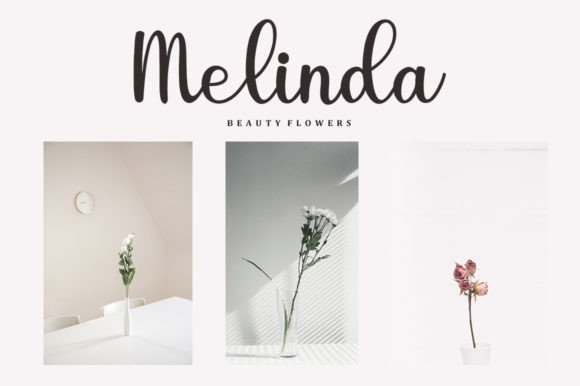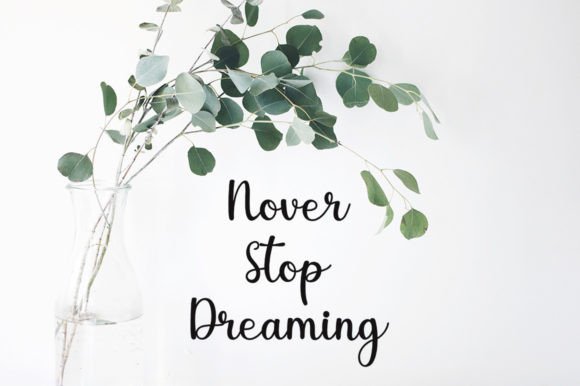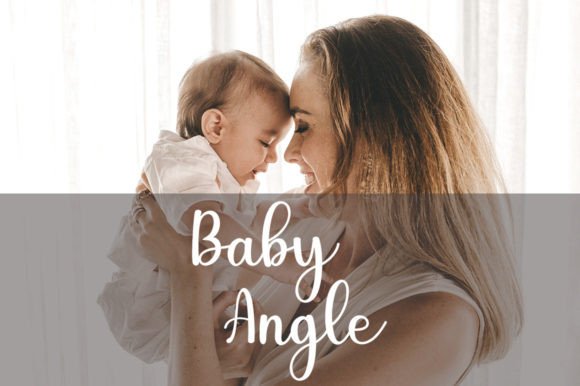
Jovanka Font
About Jovanka Font
Introducing Jovanka Font: Elegance Redefined in Every Stroke
Meet Jovanka Font, a font that exudes style and incredible elegance. This beautifully crafted script typeface is designed to leave a lasting impression on your designs. With its stunning aesthetics, Jovanka Font is the perfect choice for a wide range of creative projects. Whether you’re working on wedding invitations, thank you cards, quotes, greeting cards, logos, business cards, or any design that calls for a handwritten touch, Jovanka Font will elevate your work to a new level of sophistication.
**Unparalleled Elegance:**
Jovanka Font is a testament to unparalleled elegance. Its meticulously designed script style radiates timeless beauty and sophistication. This font effortlessly adds an air of grace and refinement to your projects, ensuring they exude a sense of luxury and prestige.
**Stylish in Every Aspect:**
What sets Jovanka apart is its stylish and graceful charm. Each character is carefully crafted to embody a sense of artistry and elegance. This font is the embodiment of timeless chicness, making it ideal for projects that demand an extraordinary level of sophistication.
**A Touch of Handwritten Luxury:**
Jovanka Font is more than just a font; it’s a touch of handwritten luxury. Its stunning design ensures that your message or branding is conveyed with an air of grace and prestige. This font is perfect for projects that require an unforgettable sense of style.
**Unforgettable Branding:**
For branding, Jovanka Font is your key to creating an unforgettable brand identity. It helps you craft logos and brand materials that are not just visually appealing but also truly memorable. Your brand will radiate elegance and prestige that resonates deeply.
**Wedding Dreams Come True:**
Jovanka Font is the dream choice for wedding designs. It adds an elegant and luxurious touch to wedding invitations, thank you cards, and all aspects of wedding stationery. Your wedding themes will be adorned with a sense of timeless opulence.
**Inspire with Quotes:**
When it comes to quotes, Jovanka Font empowers you to create visually captivating and inspirational designs. Your messages will shine with a touch of elegance and artistry that leaves a profound impact.
**Endless Creative Possibilities:**
Jovanka Font opens up a world of endless creative possibilities. Its luxurious beauty and timeless elegance encourage you to explore diverse design applications, making your projects more stylish and unforgettable.
In conclusion, Jovanka Font is more than just a font; it’s a masterpiece of design that adds unparalleled elegance and artistic style to your projects. Its versatility ensures it’s suitable for a wide range of applications, from branding to invitations and quotes. Embrace the graceful charm of Jovanka Font and watch your designs come to life with an extraordinary touch of luxury and prestige. Make Jovanka your font of choice and embark on a journey of creating breathtakingly beautiful and stylish designs!